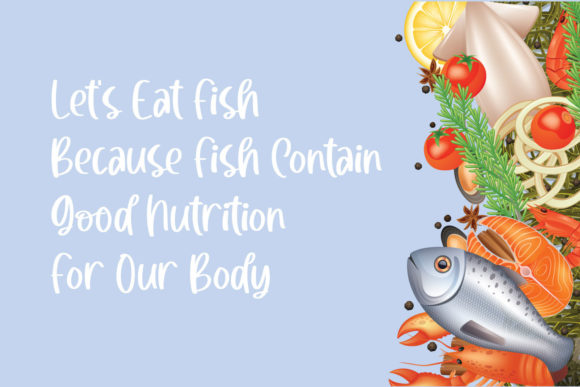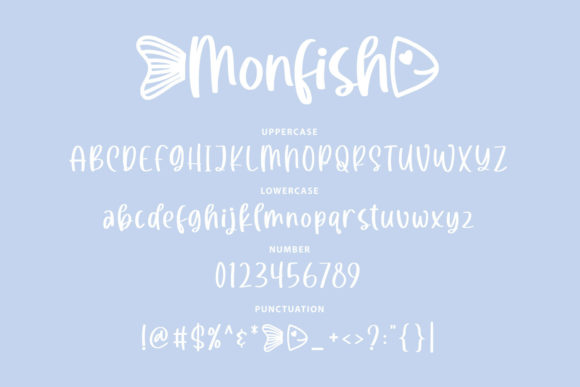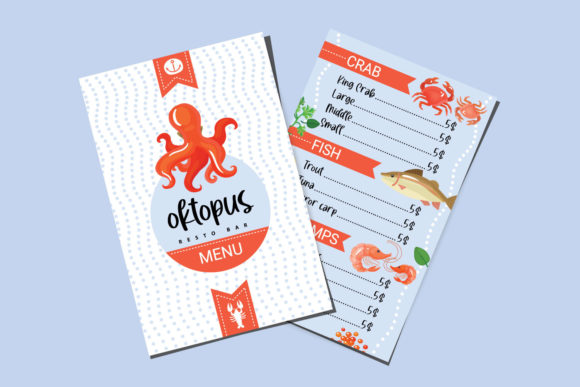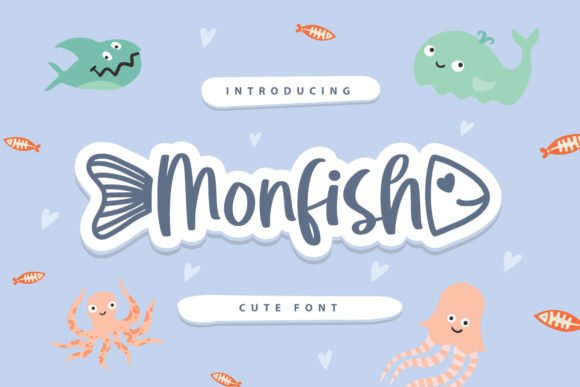
Introduction to Monfish Font
Monfish is a cool, charming, and fun handwritten font.
It embodies playfulness and authenticity and is the perfect choice for any children’s activity or school project This font is PUA encoded which means you can access all of the amazing glyphs and ligatures with ease.